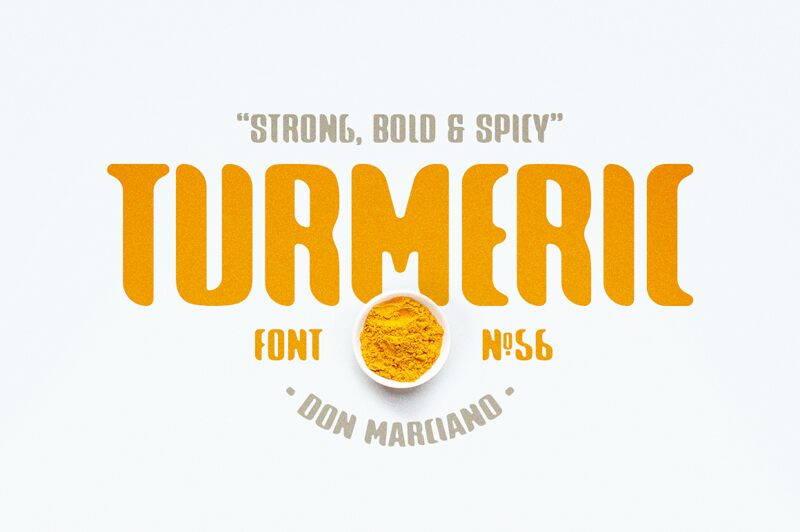
Introducing Turmeric, a condensed display font designed by Juan Miguel Castillo. With its round-edges and playful feel, Turmeric is perfect for creative projects such as logos, posters, and product packaging.
Turmeric
Don Marciano
Juan Miguel Castillo